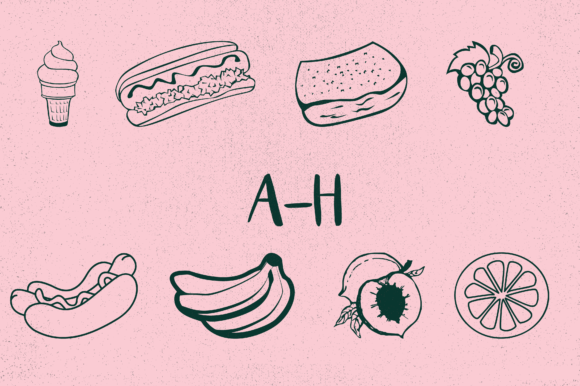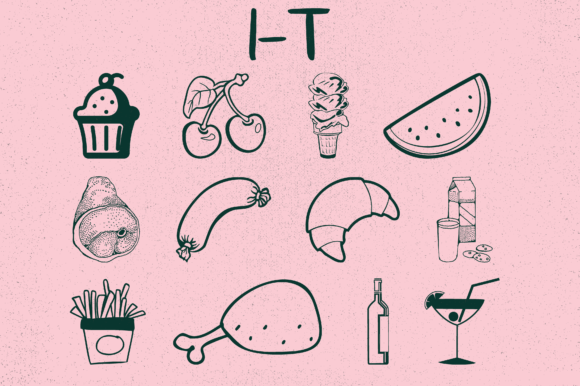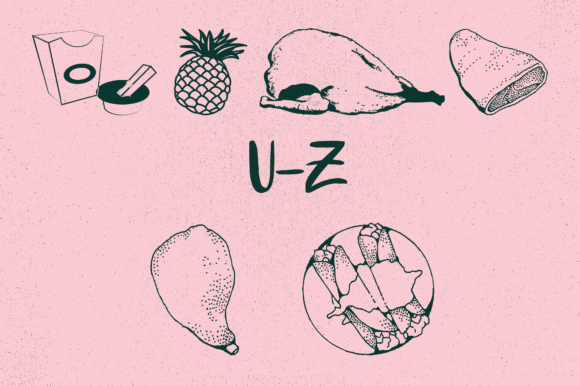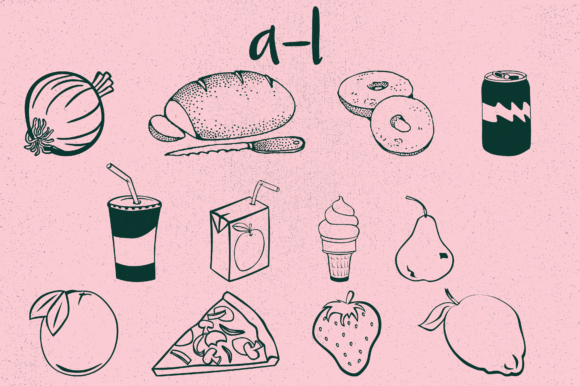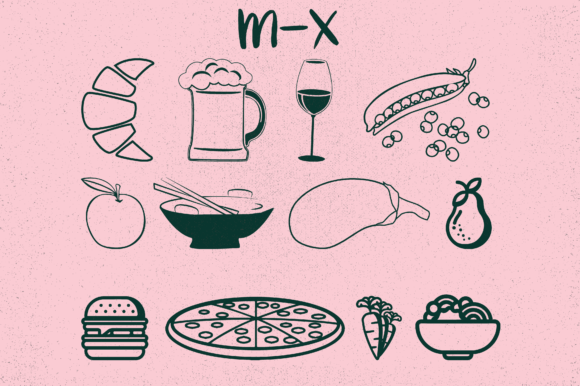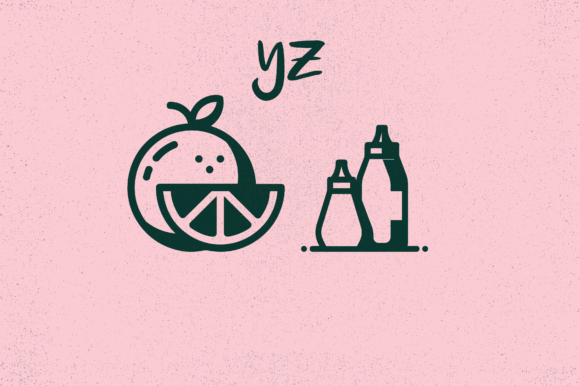
Introducing Foodiest Font: The Ultimate Dingbats for Foodies and Designers
Are you a food enthusiast, designer, or crafter looking for a unique and cool font to add a personal touch to your projects? Look no further than Foodiest Font, a one-of-a-kind dingbats font that will take your designs to the next level. With Foodiest, the only limit is your imagination, and we’re excited to show you just how versatile and amazing it can be.
What is Foodiest Font?
Foodiest Font is a dingbats font that features a wide range of food-related icons, from delicious dishes and ingredients to kitchen utensils and dining accessories. The font is carefully crafted to provide a unique and visually appealing way to add a personal touch to your designs, whether you’re working on a food blog, a restaurant menu, or a crafting project.
Why Choose Foodiest Font?
So, what sets Foodiest Font apart from other fonts out there? Here are just a few reasons why designers and crafters are falling in love with this amazing dingbats font:
- Unique and Exclusive: Foodiest Font is a one-of-a-kind font that will add a touch of personality to your designs. With its exclusive set of food-related icons, you’ll be able to create designs that stand out from the crowd.
- Versatile: Whether you’re working on a food blog, a restaurant menu, or a crafting project, Foodiest Font is the perfect choice. The font can be used for a wide range of applications, from digital designs to print materials.
- High-Quality: Foodiest Font is a high-quality font that is designed to provide crisp and clear results, even at small sizes.
Foodiest Font is a versatile font that can be used in a wide range of applications. Here are some ideas to get you started:
- Food Blogs: Use Foodiest Font to add a personal touch to your food blog, from recipe headers to ingredient lists.
- Restaurant Menus: Add a touch of personality to your restaurant menu with Foodiest Font’s unique icons.
- Crafting Projects: Use Foodiest Font to create custom crafting projects, from party decorations to gift tags.
- Social Media Graphics: Create eye-catching social media graphics with Foodiest Font’s food-related icons.
Foodiest Font is a unique and versatile dingbats font that is perfect for foodies, designers, and crafters. With its wide range of food-related icons and easy-to-use design, Foodiest Font is the perfect choice for anyone looking to add a personal touch to their projects. So why wait? Download Foodiest Font today and start creating amazing designs that will leave a lasting impression.